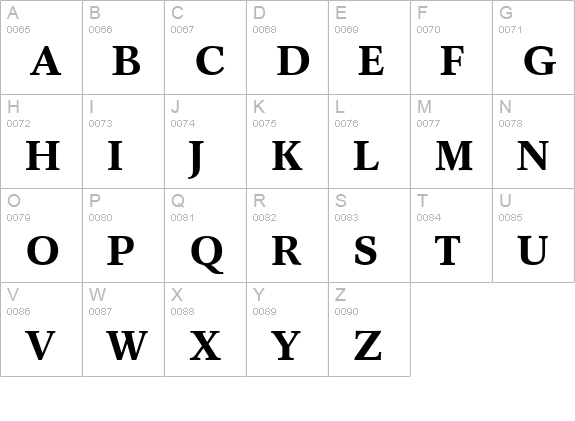
Informatics SSi Bold Font Details
Informatics SSi Bold is a strong, high-contrast variant in the Informatics typeface family \xE2\x80\x94 well suited to headlines, attention-grabbing titles, and strong calls-to-action.
Introducing Informatics SSi Bold font, a versatile and captivating typeface that will undoubtedly elevate your design projects to new heights. With its bold and commanding presence, this font exudes confidence and professionalism, making it perfect for a variety of creative endeavors. Whether you're designing a logo, crafting eye-catching headlines, or creating compelling marketing materials, Informatics SSi Bold font is sure to make a lasting impression. Its clean lines and meticulously crafted letterforms ensure legibility and readability across different mediums, from print to digital. One of the standout features of Informatics SSi Bold font is its versatility. This font effortlessly adapts to any design concept or style, allowing you to convey your message with clarity and impact. Its bold weight adds emphasis and visual interest, making it ideal for titles, headings, and other focal points in your designs. The best part? Informatics SSi Bold font is available for free download at FontsMarket.com. That's right, you can access this remarkable font without spending a penny. FontsMarket.com offers a vast collection of high-quality fonts, and Informatics SSi Bold font is just one of the many gems you'll find there. So why wait? Take advantage of this incredible opportunity to enhance your design projects with Informatics SSi Bold font. Download it for free at FontsMarket.com and unlock a world of creative possibilities. Whether you're a professional designer or a passionate hobbyist, Informatics SSi Bold font will undoubtedly become an invaluable addition to your typography toolkit. Don't miss out on this fantastic font – get it now and start creating visually stunning designs today.